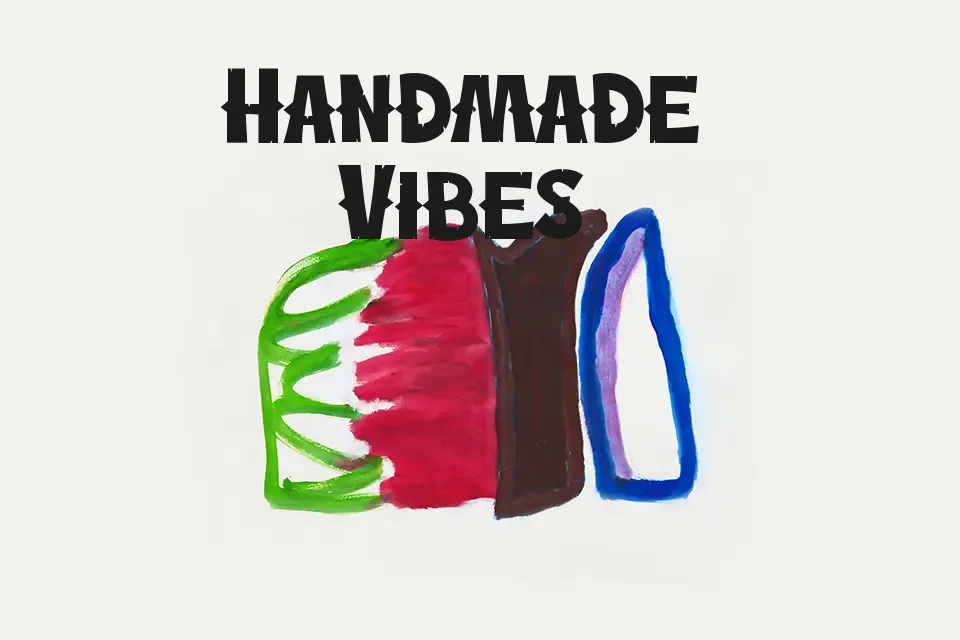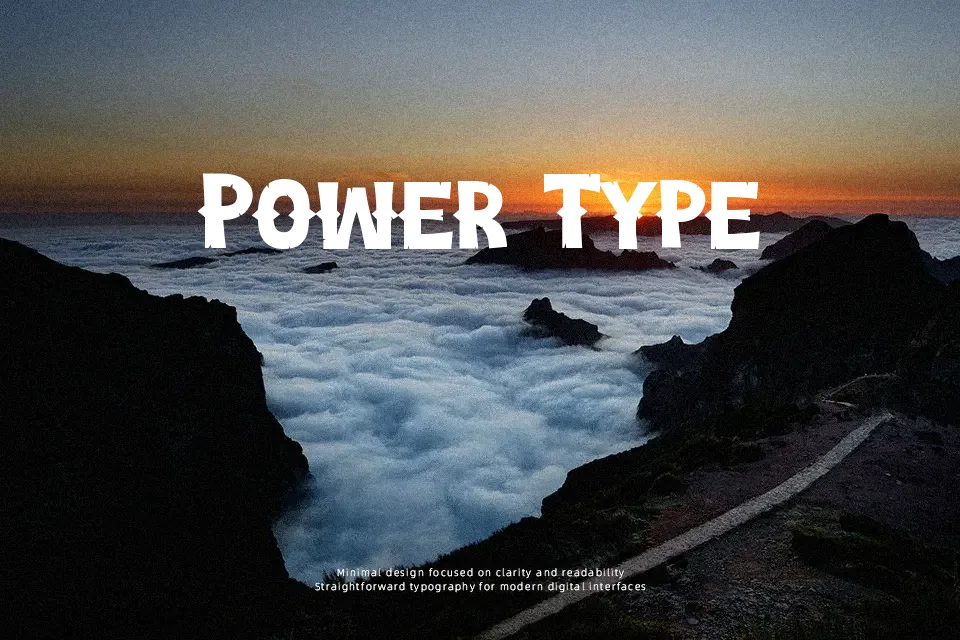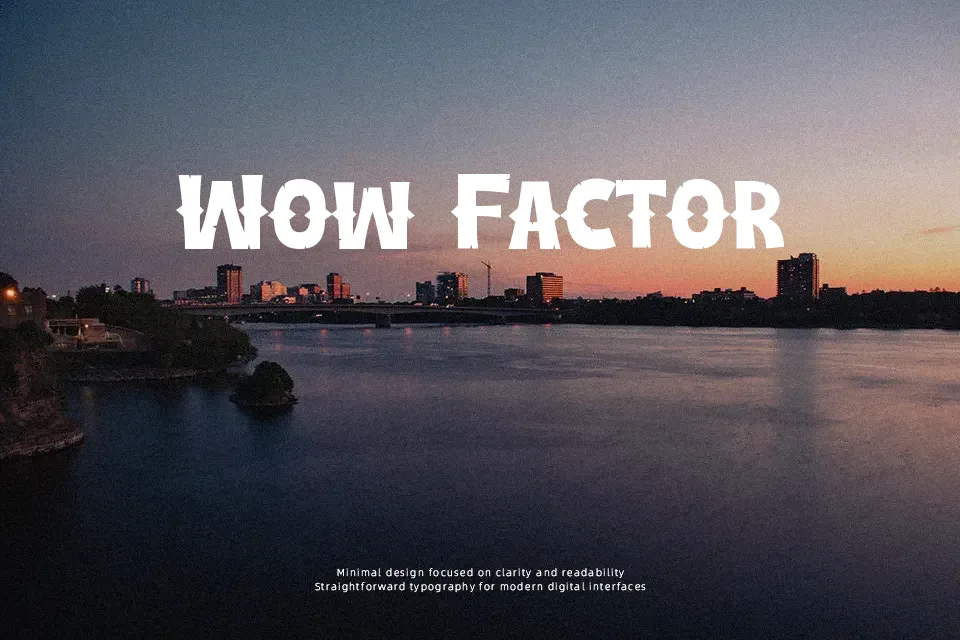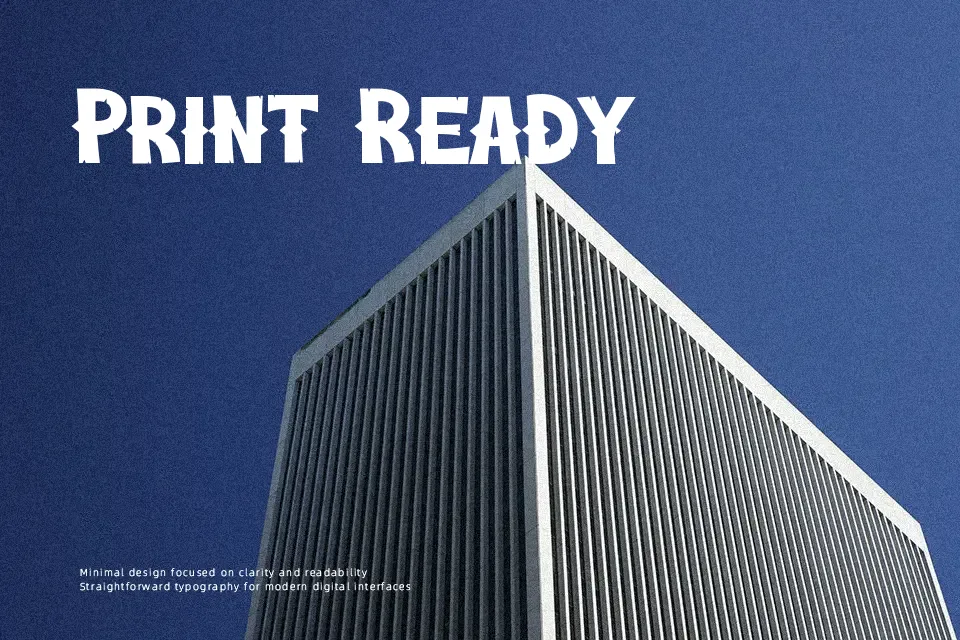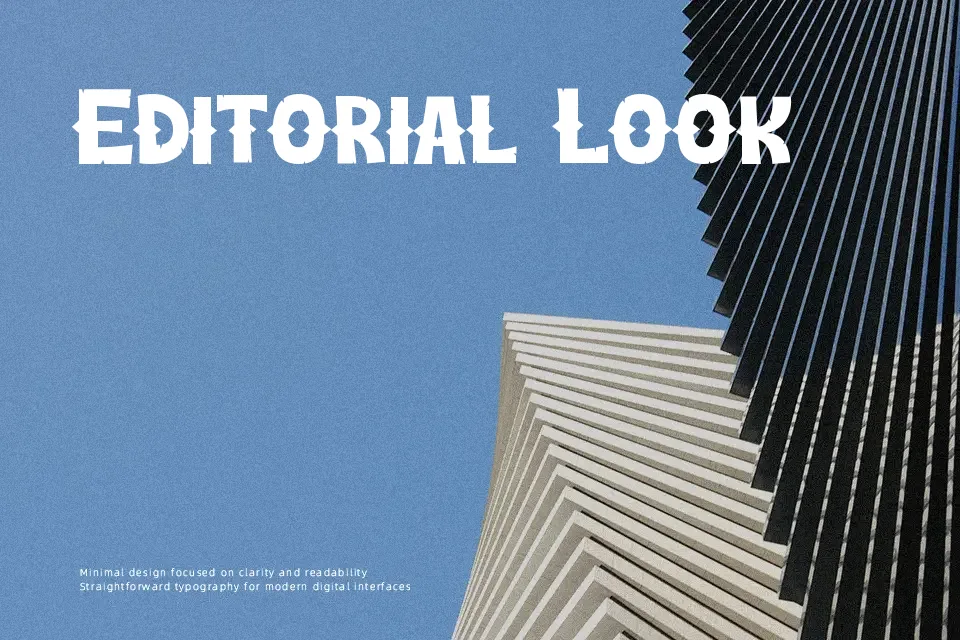
Capitan Mura Font
Capitan Mura Font presents an adventurous display aesthetic defined by thick, angular stroke weights, notched letter corners, and bold geometric structures. The glyphs feature compact character spacing and exaggerated, sturdy proportions that command visual attention across theatrical layouts. Heavy stroke contrast and sharp decorative spurs give the letterforms a distinct pirate and nautical motif. While the typeface maintains strong readability in prominent headlines, poster titles, and branding graphics, the dense shapes lose clarity when reduced to smaller caption sizes. Consequently, the design is unsuited for continuous body text, but it excels in punchy, character-driven focal points.
Best For: adventure game titles,pirate themed posters,animated movie headlines,thematic product packaging
Not Ideal For: long paragraph body text,mobile interface labels,technical documentation,dense editorial layouts
Perfect for film, gaming, and headline, with a bold and cartoon style.